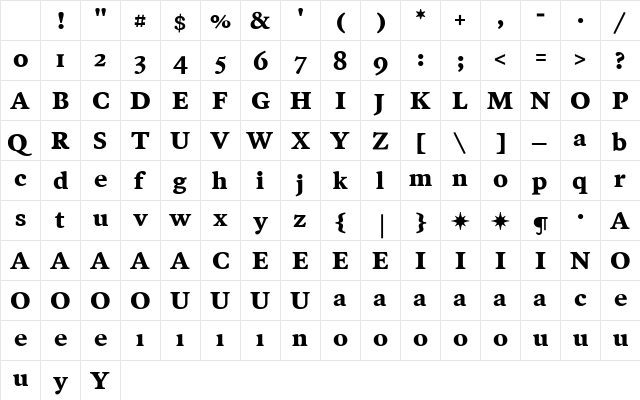
Complete PoynterText Regular glyph index. Displaying only characters natively supported by PoynterText Regular font.
PoynterText is a composed and adaptable typeface that performs quietly and consistently across a wide range of design contexts.